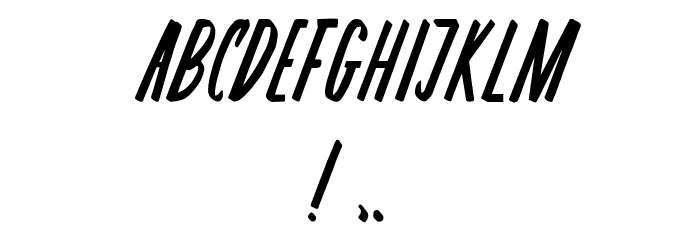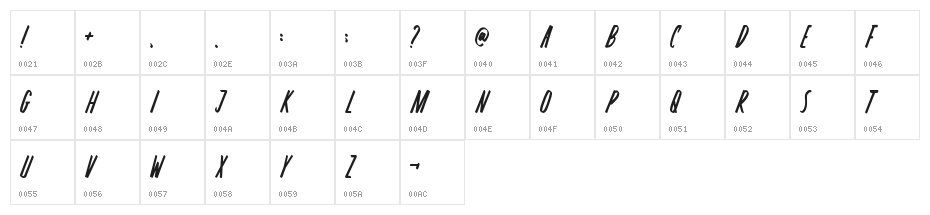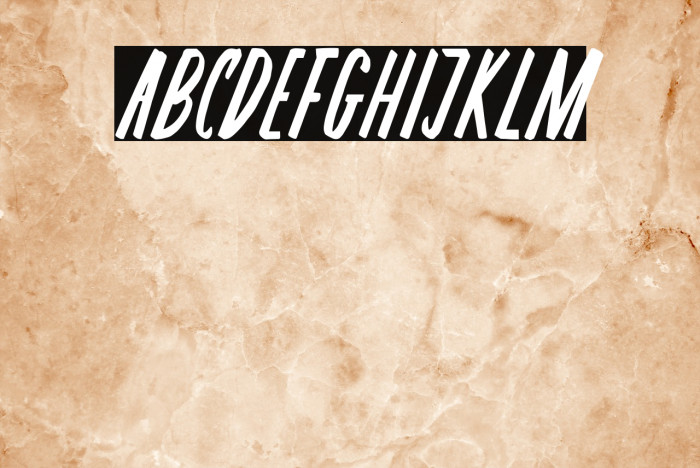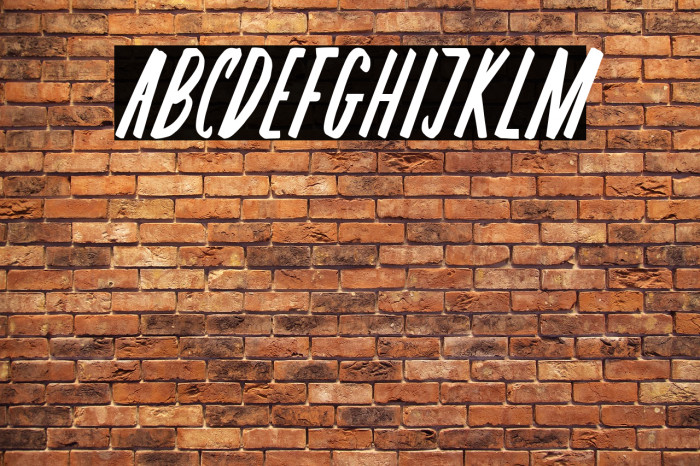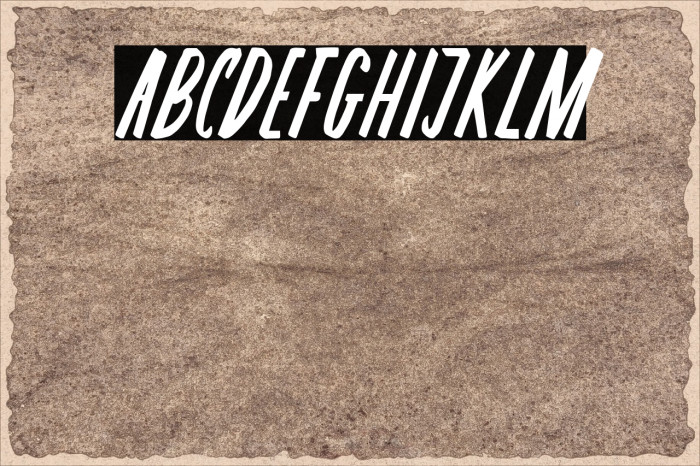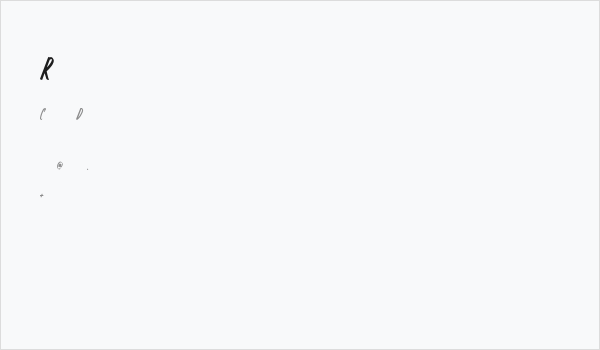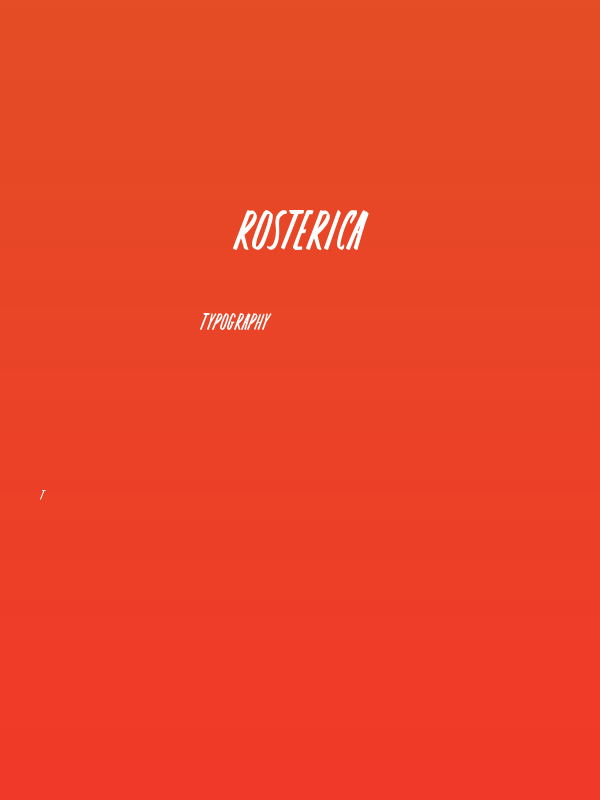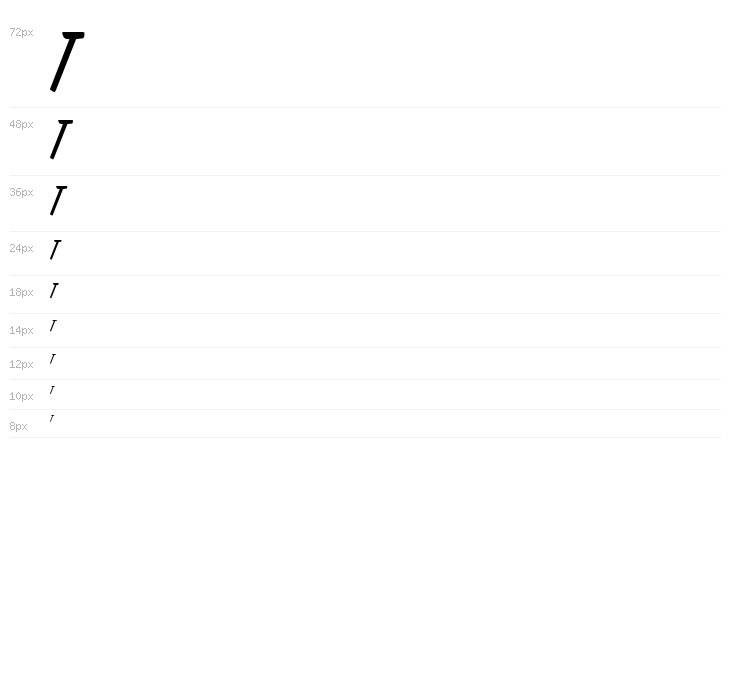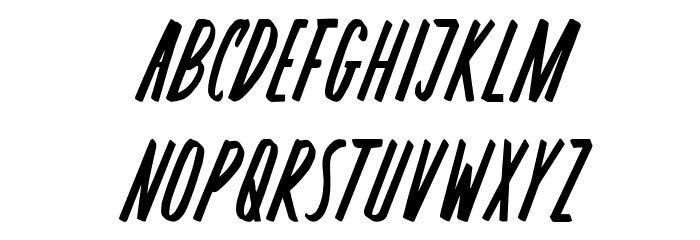
Rosterica Font
Rosterica Description
This font features a bold and dynamic style with a handwritten appearance. The characters are slightly slanted, giving a sense of motion and energy. The strokes are thick and consistent, providing a strong visual impact. The uppercase letters are prominent and well-defined, while the lowercase letters maintain a cohesive flow. The numbers and special characters are designed to match the overall aesthetic, ensuring uniformity across all elements. This font is ideal for projects that require a lively and engaging look, such as posters, branding, and creative designs.
| Proposed Projects | Ideal for posters, branding, creative designs, and any project needing a lively touch. |